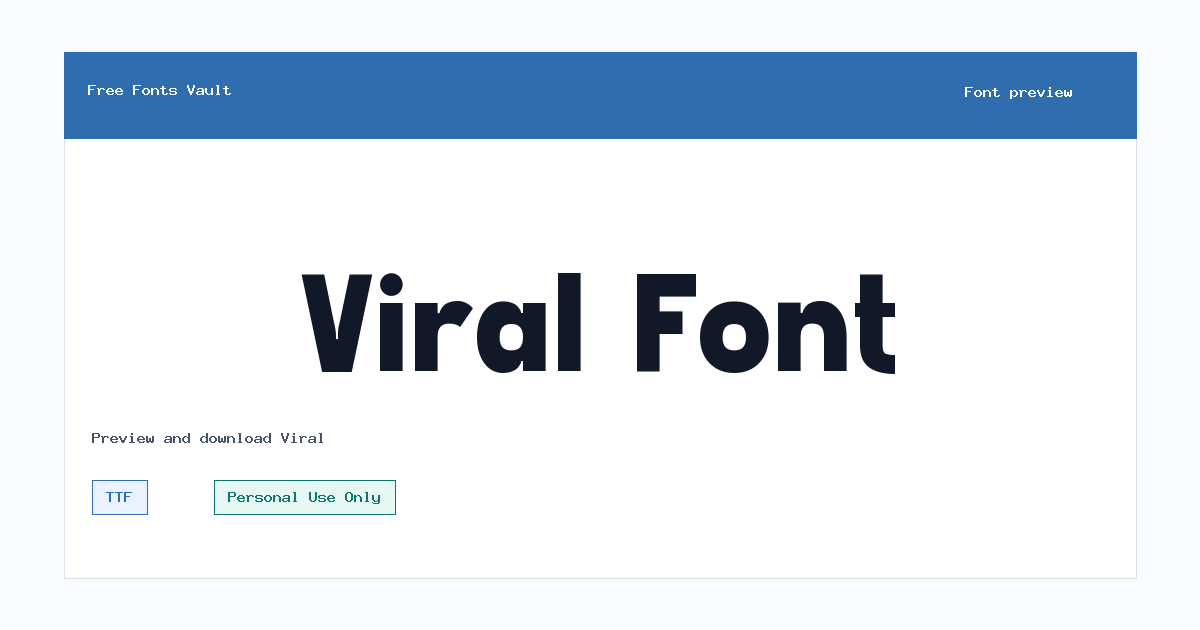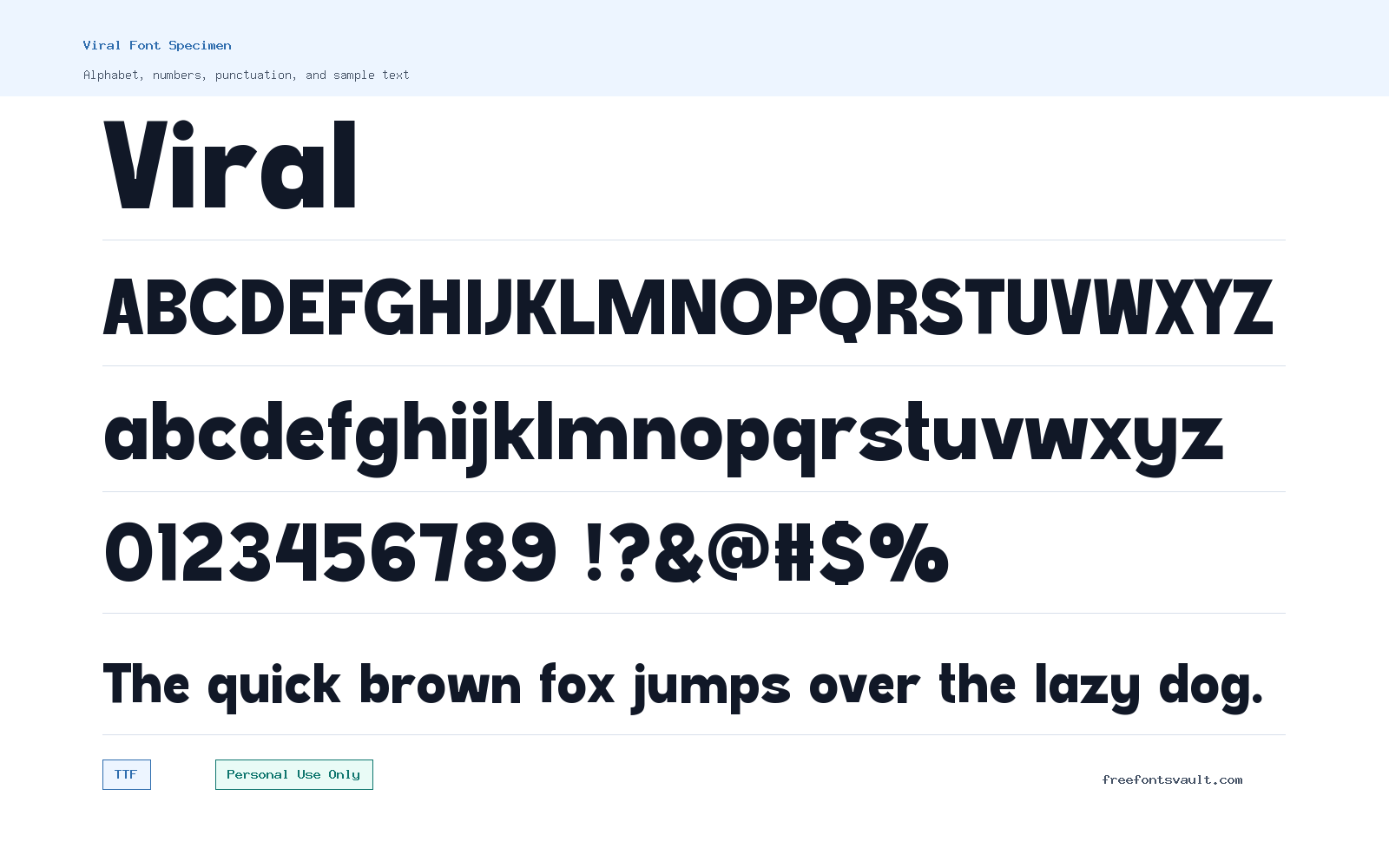
Viral
Viral font.
Viral is a sans serif display font for personal-use projects where you want clean lettering with a more distinctive voice than a standard system font.
About Viral Font
Viral works best when it is treated as a headline or short-text font rather than a long reading face. Its sans serif structure keeps the letterforms easy to test in the preview box, while the single regular style makes it simple to try on titles, nameplates, social graphics, labels, and small poster-style layouts. Because only a regular weight is listed, it is a good idea to check how the font behaves at the exact size you plan to use before committing it to a design.
For visitors comparing fonts, the most useful test is to type the real words you intend to use. Try brand names, event titles, initials, numbers, and punctuation, then preview both uppercase and lowercase if your text needs them. Viral may work well for compact headings, display lines, thumbnails, personal artwork, and hobby graphics, but it should be paired carefully with a quieter text font when you need paragraphs, captions, or detailed information. A neutral sans serif or readable serif can help keep the layout balanced while Viral handles the main visual phrase.
- Sans serif font family with a regular 400 style
- Personal poster titles, thumbnails, and social media graphics
- Short display text such as names, labels, headings, and logo drafts for non-commercial use
What is Viral best used for?
Use Viral for short personal-use display text such as titles, graphics, labels, posters, and mockups. It is better to test another readable font for long paragraphs.